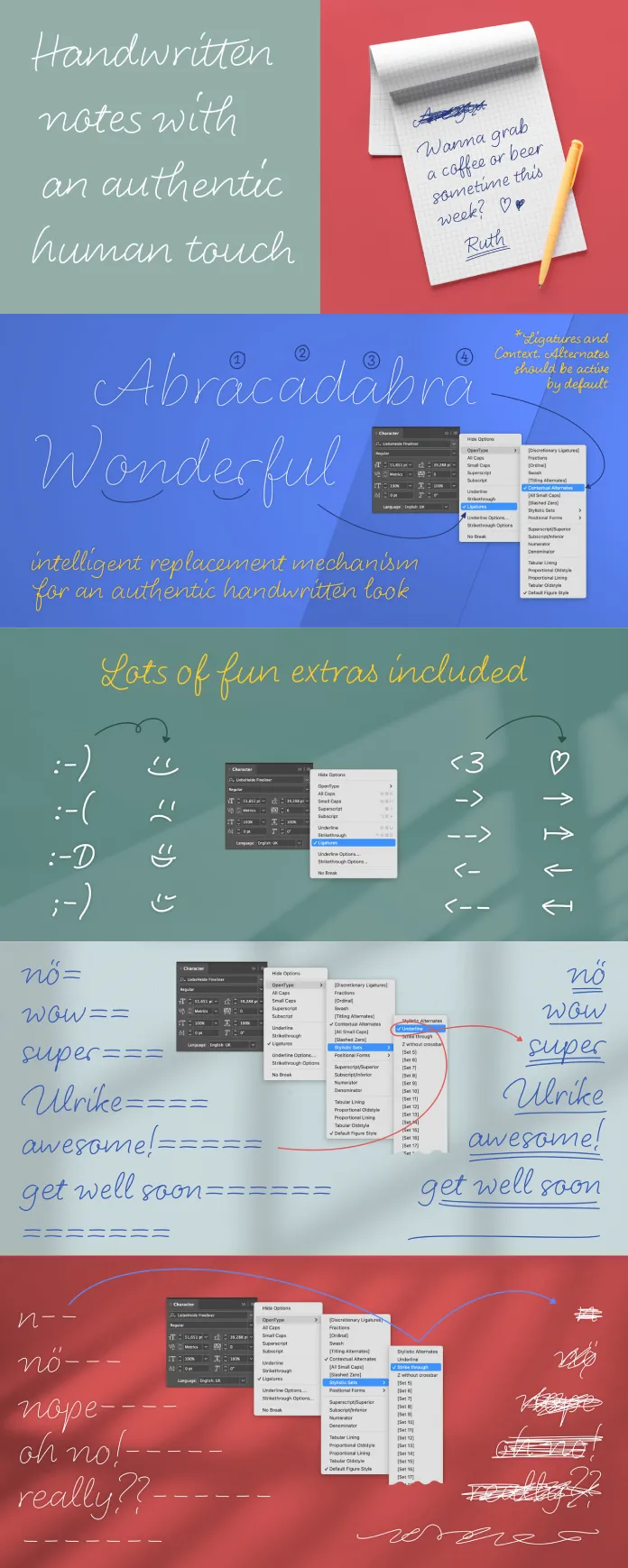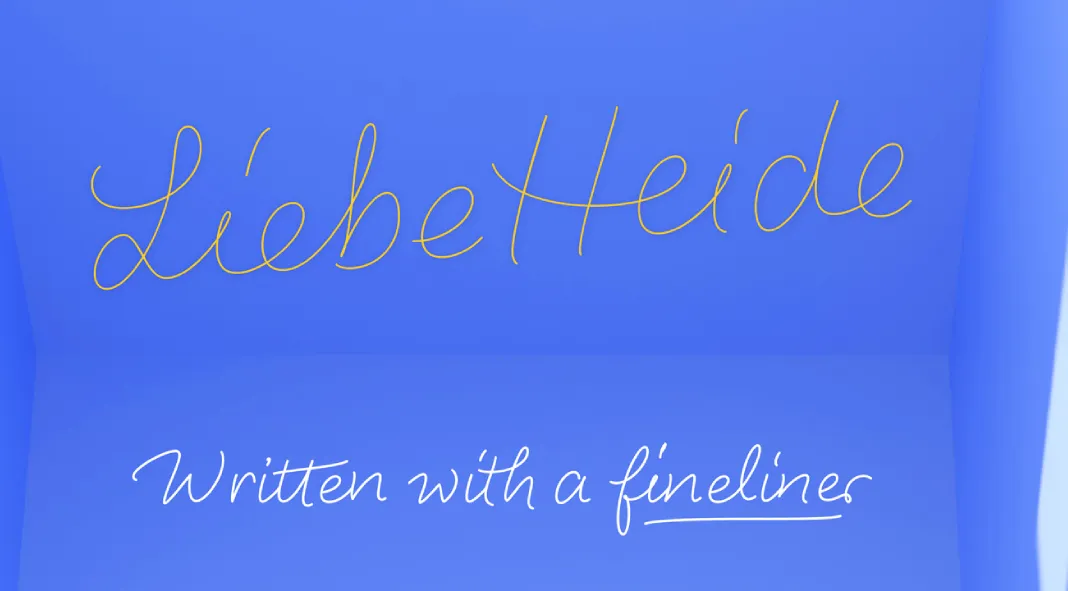
LiebeHeide Fineliner by Ulrike Rausch is a Masterpiece of Handwriting Precision
The LiebeHeide Fineliner font family, designed by Ulrike Rausch of the acclaimed foundry LiebeFonts, is a brilliant addition to the typography landscape, striking the perfect balance between sophistication and personality. As the vectorized version of the award-winning LiebeHeide color font, Fineliner elevates the original design with cleaner lines and enhanced versatility, offering designers a tool that seamlessly blends elegance with the warmth of handwritten text.
Visual Appeal and Versatility
LiebeHeide Fineliner immediately captures attention with its refined curves and smooth, lifelike strokes. Unlike many standard handwriting fonts, which can often feel impersonal or inconsistent, Fineliner’s meticulous design exudes professionalism without sacrificing charm. The subtle details, such as the slight variations in stroke weight and curvature, emulate the imperfections of human handwriting, giving the font a dynamic, approachable feel.
LiebeHeide Fineliner Font Family by Ulrike Rausch of LiebeFonts
This font family is not just aesthetically pleasing, but also exceptionally versatile. From branding projects to personal correspondence, Fineliner adapts effortlessly, enhancing both professional presentations and creative layouts. It’s the kind of font that feels just as at home on a sleek corporate identity as it does in a whimsical illustration project.
Ligatures and Alternatives: Elevating Typography
A standout feature of LiebeHeide Fineliner is its extensive range of ligatures and alternative characters. These ligatures allow for fluid letter connections, giving the text a natural, handwritten flow—a crucial element for creating authentic typography. The organic transitions between letters ensure that each word feels connected and harmonious, enhancing readability while maintaining an artistic flair.
Moreover, the numerous letter alternatives provide endless customization options. Whether a designer wants a subtle variation in repeated characters or a unique look for each line of text, Fineliner delivers. This variety ensures that no two projects using LiebeHeide Fineliner will ever feel identical, offering a fresh, custom feel to every design.
Practical Applications and Impact
LiebeHeide Fineliner’s potential applications are wide-ranging. It is ideal for branding, where the personal, approachable nature of the font can forge a strong connection with the audience. Businesses looking to stand out in a crowded marketplace will appreciate Fineliner’s ability to convey both professionalism and warmth—qualities that resonate with modern consumers.
For digital and print projects alike, the font’s clean lines translate beautifully across different mediums. Its legibility and scalability make it suitable for everything from website headers to product packaging, offering a level of consistency that designers can rely on.
The font’s personal touch makes it particularly suitable for more intimate design projects, such as invitations, greeting cards, or personal branding. Its natural flow and hand-drawn aesthetic imbue these works with a sense of authenticity and individuality that mechanical fonts cannot match.
Typography with a Timeless, Personal Touch
In the LiebeHeide Fineliner font family, Ulrike Rausch has crafted a timeless and remarkably personal typographic tool. Its unique blend of precision and warmth makes it a standout choice for designers seeking to create connections through their work. The font’s ability to marry technical refinement with organic beauty makes it both approachable and versatile—a truly modern handwriting font that will remain relevant for years to come. Whether for branding, editorial design, or personal projects, LiebeHeide Fineliner is a font that turns words into art, adding both substance and style to any project.